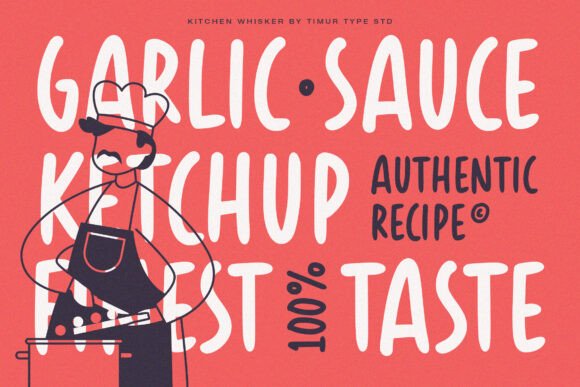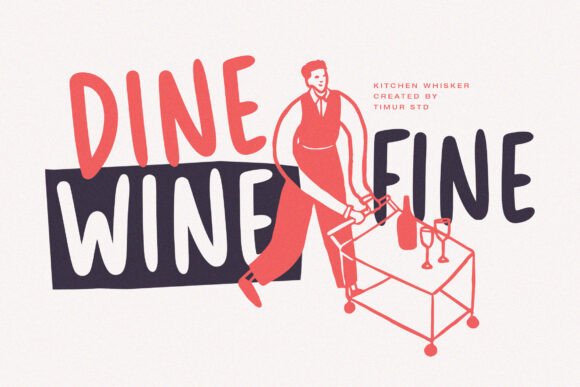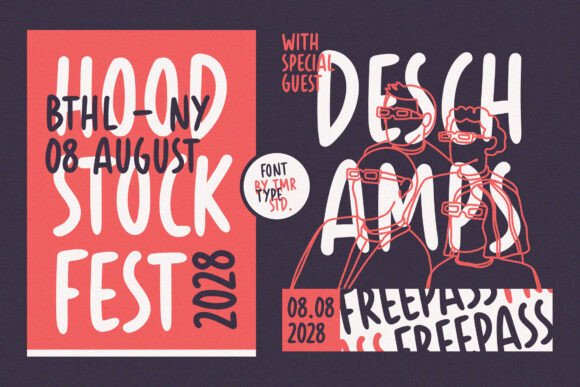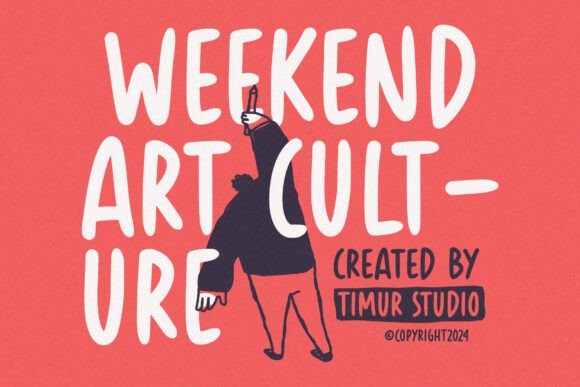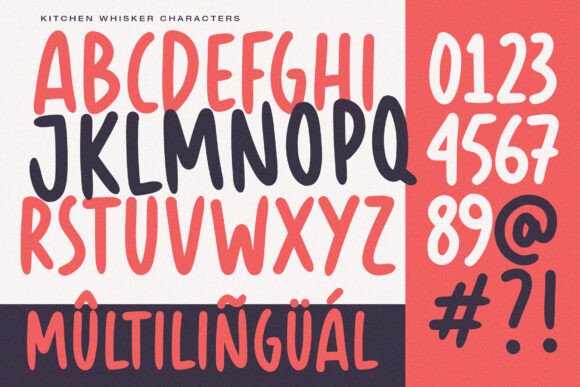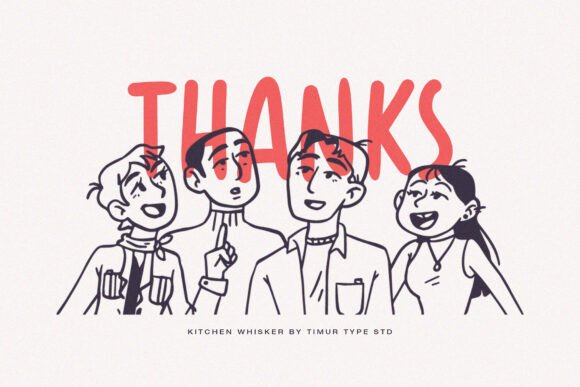
Introduction to Kitchen Whisker Font
Kitchen Whisker is a playful handwritten display font that brings a touch of whimsy to your designs.
With its charming, organic strokes and delightful curves, this font evokes the warmth of home cooking and creativity Perfect for food-related projects, recipes, and casual branding, Kitchen Whisker adds a fun, flair that invites viewers to savor every word.